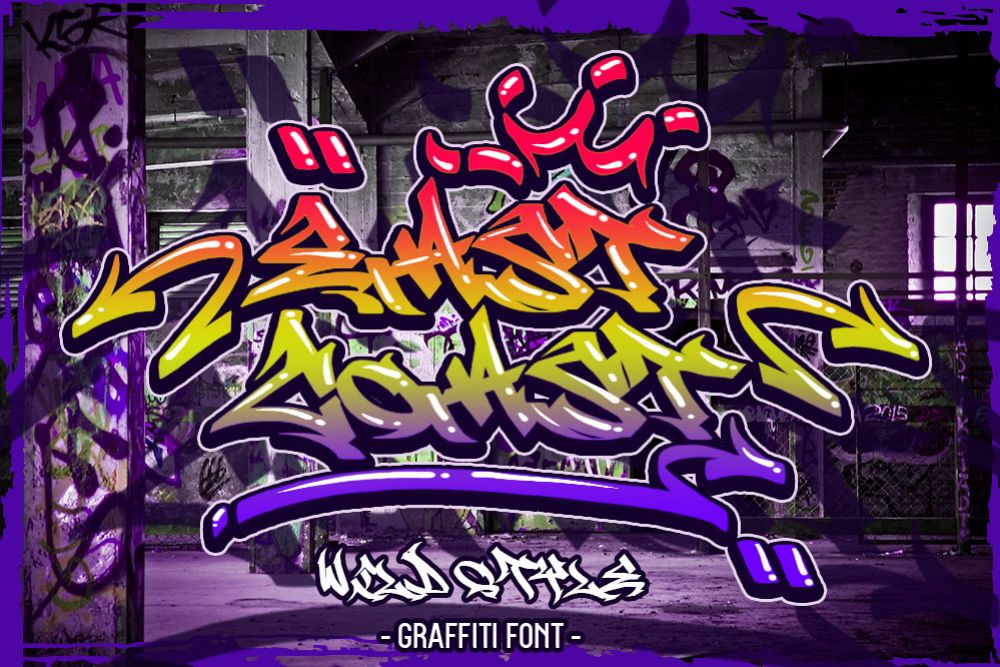
EAST COAST WILD STYLE GRAFFITI
EAST COAST
Hello everyone, introducing the latest graffiti fonts that are different from the others. east coast wild style graffiti font is very easy to use for all products. This font has several features in it. among them are uppercase, lowercase, numeral & punctuations and bonus swash vector eps which can be used for more complete design needs. enjoy it. thanks.